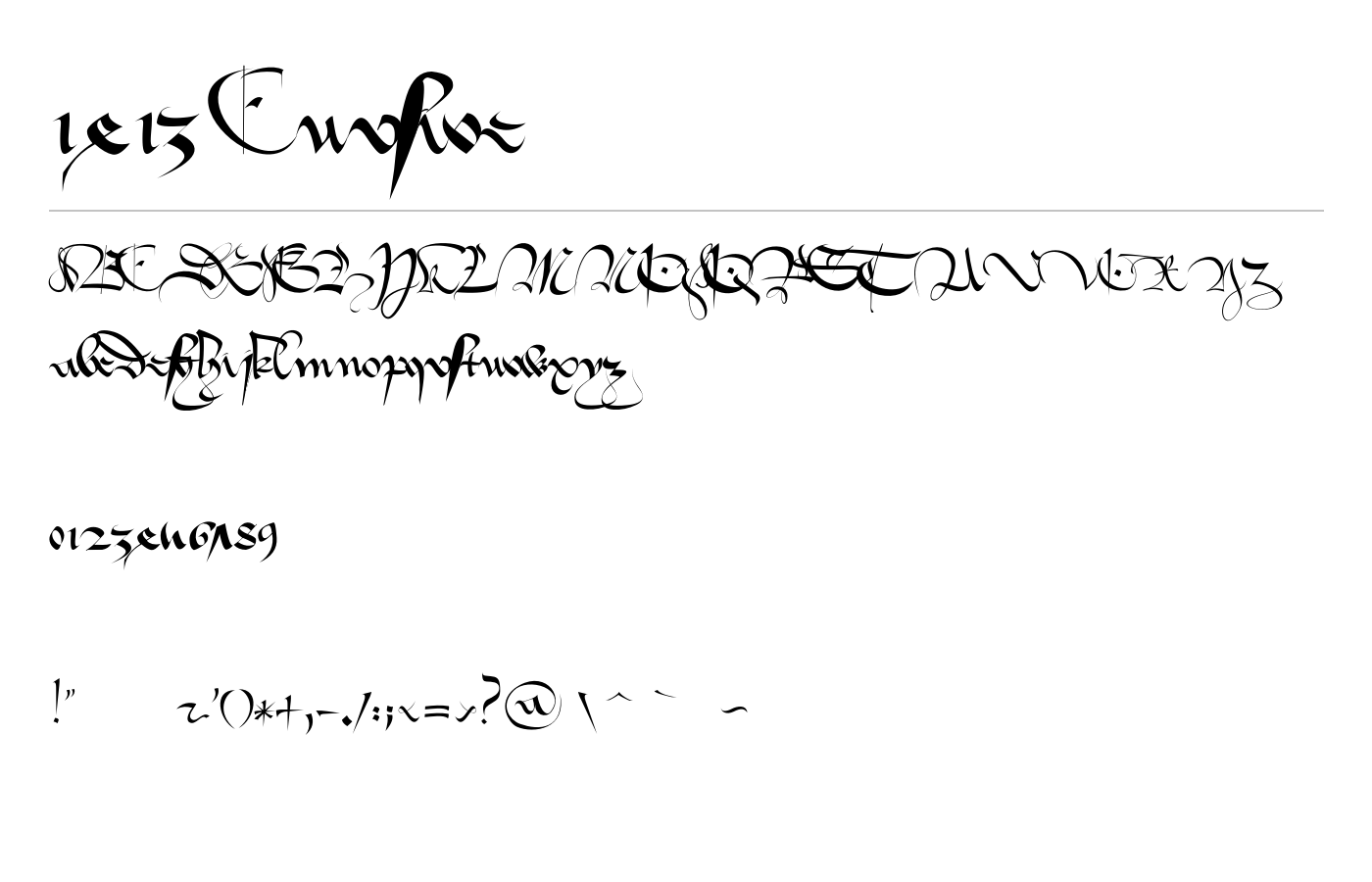
1413 Cursive Font is an intricate, highly stylized script font featuring sharp, dramatic strokes and elegant flourishes that give it a vintage, calligraphic feel. Its complex letterforms and tight, angular shapes make it best suited for decorative uses such as logos, invitations, or artistic headlines where a striking, ornate appearance is desired. This font brings a sense of refined craftsmanship and old-world charm, ideal for projects that aim to convey elegance and uniqueness.
1413 Cursive Font
About 1413 Cursive Font
| Font family | 1413 Cursive Font |
| Designer | Errance |